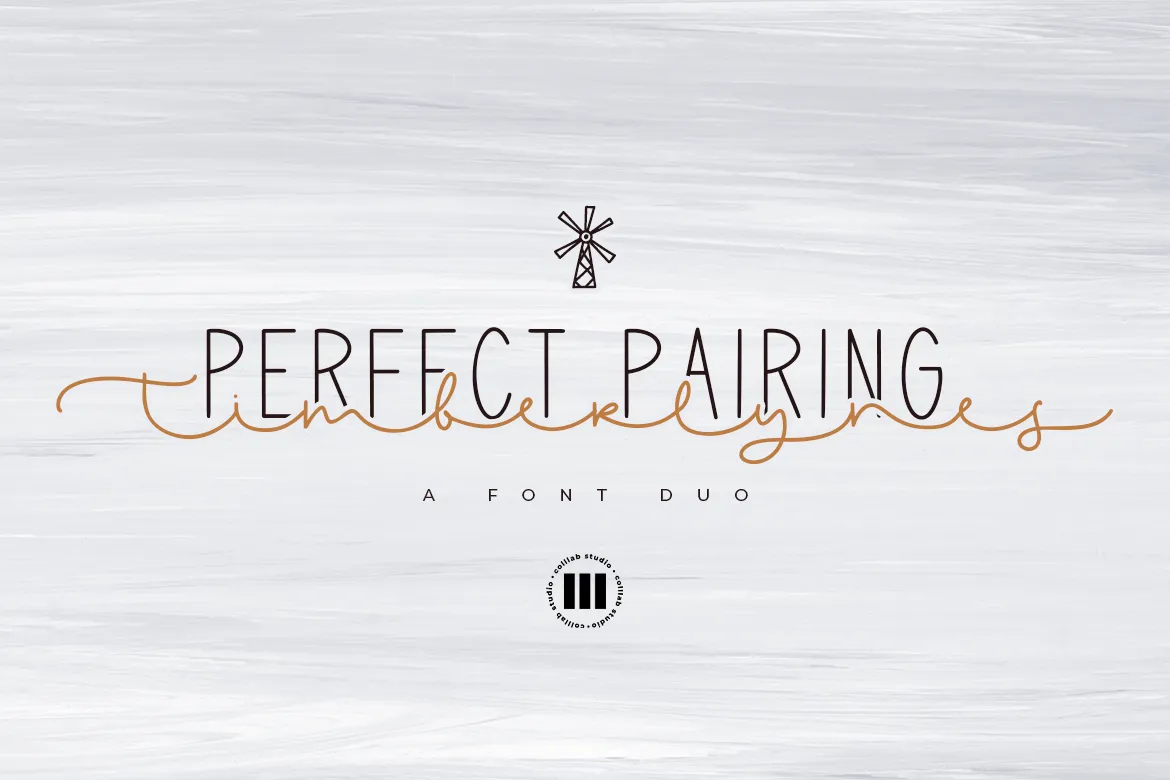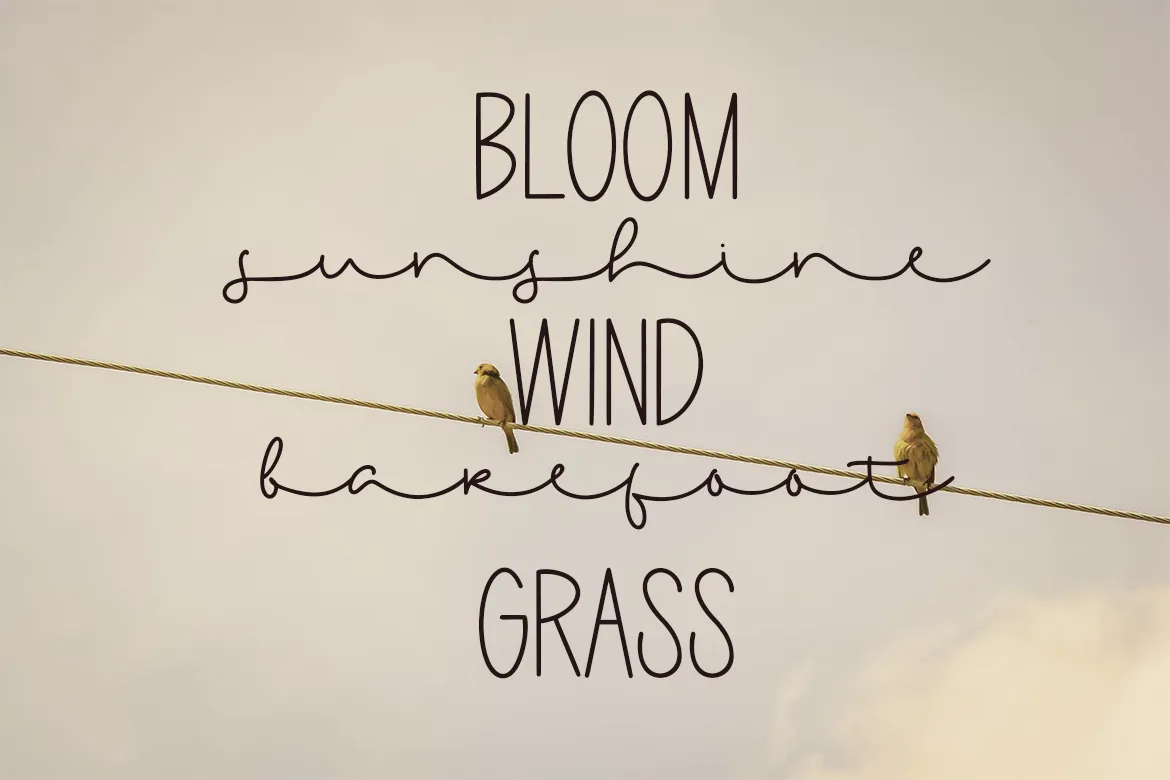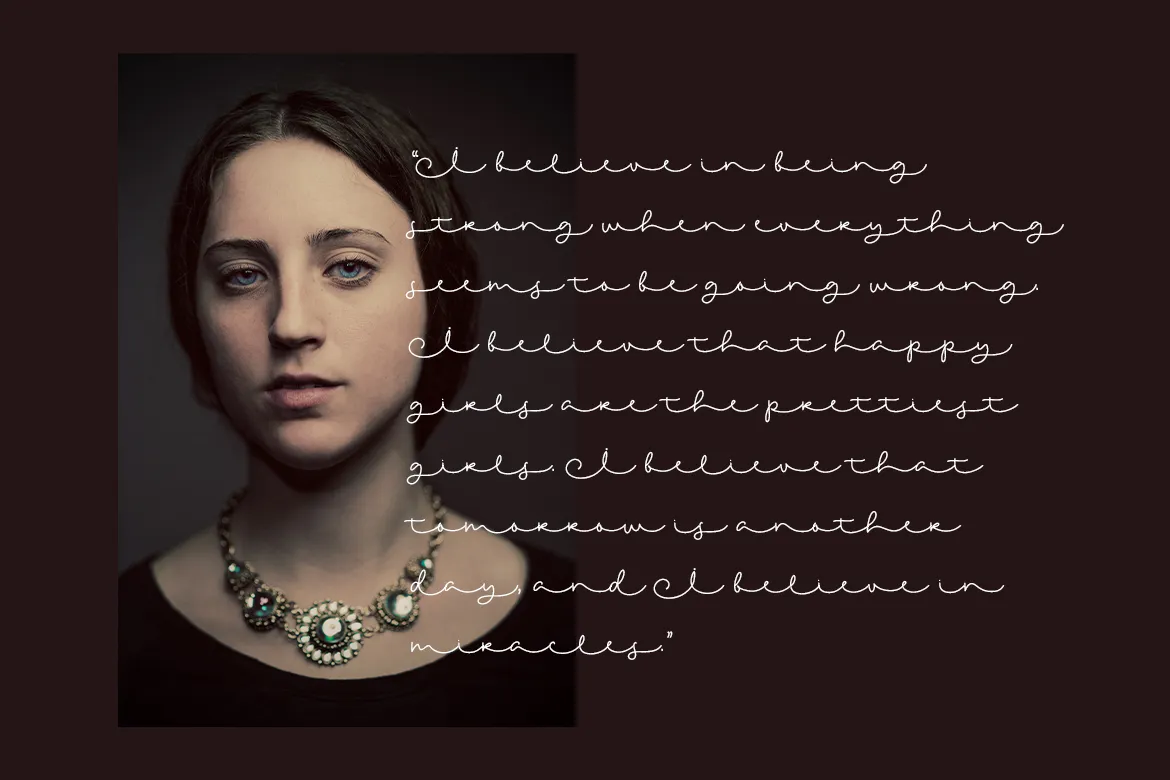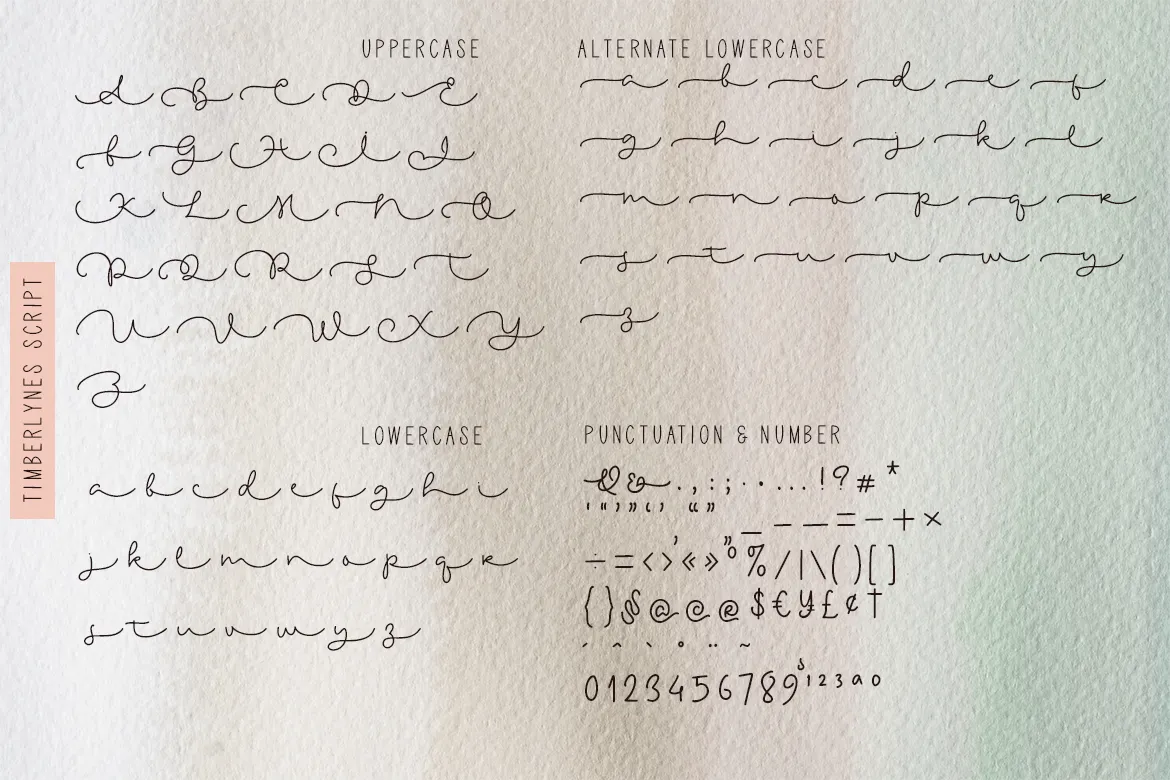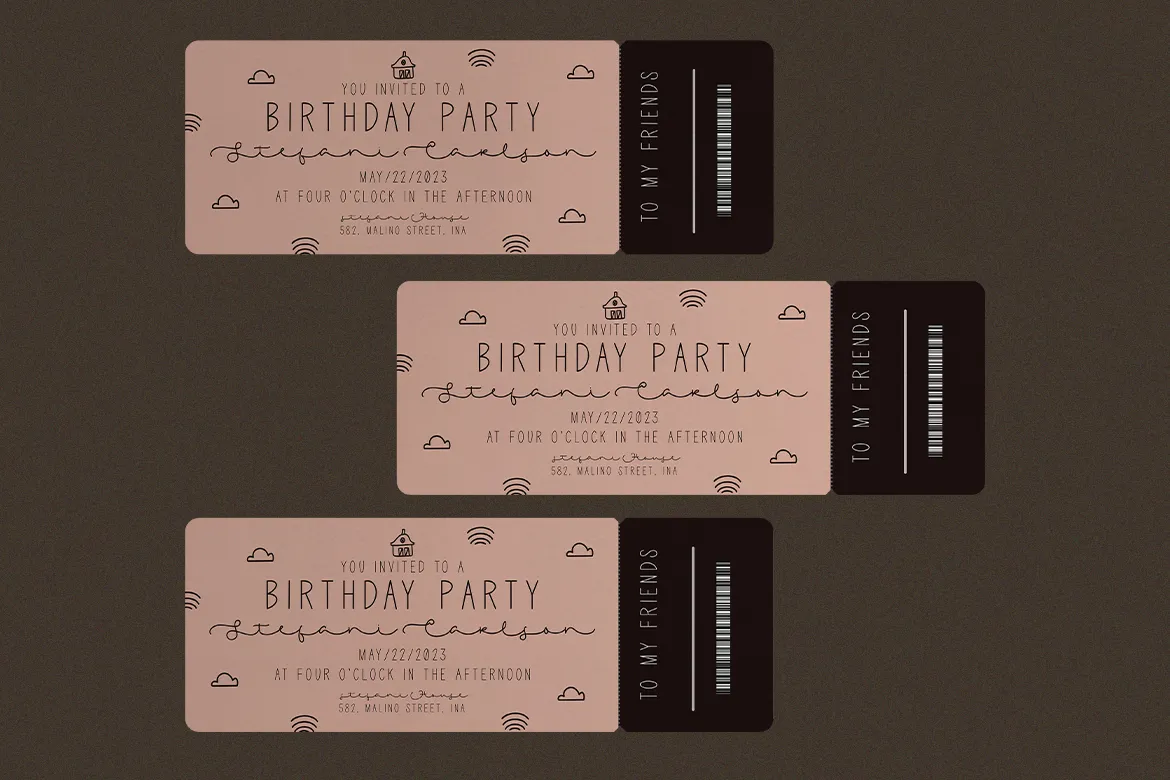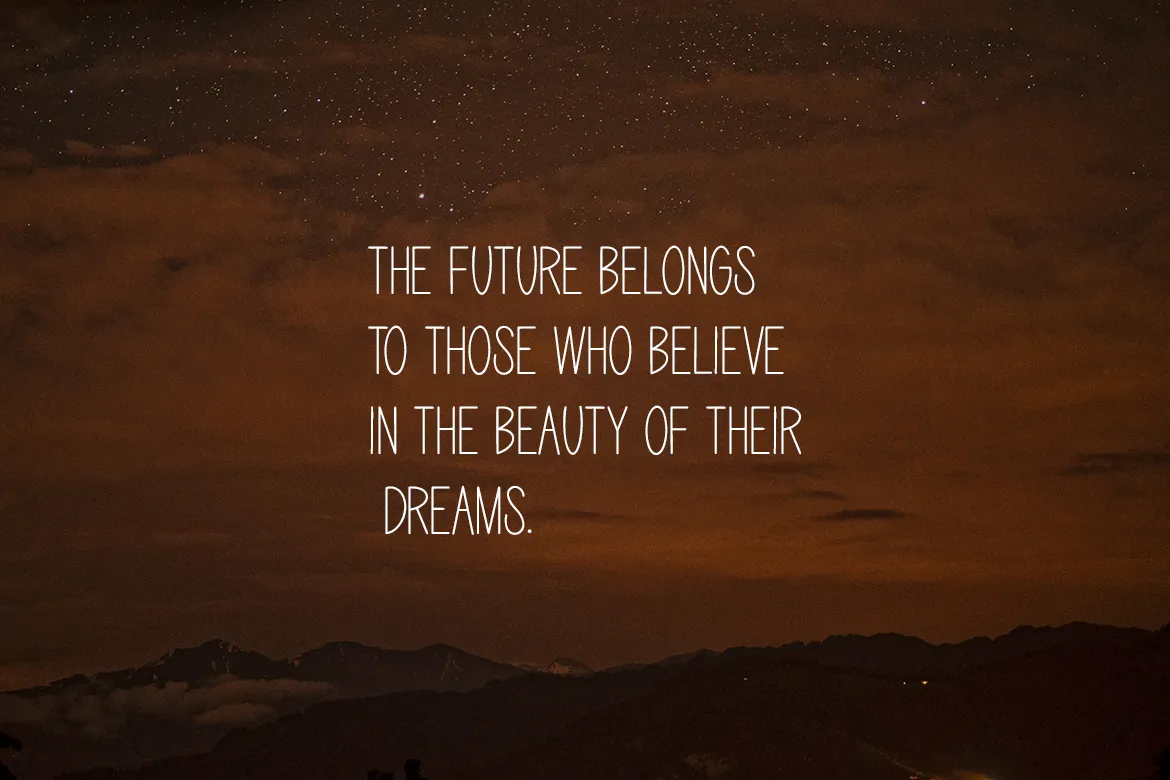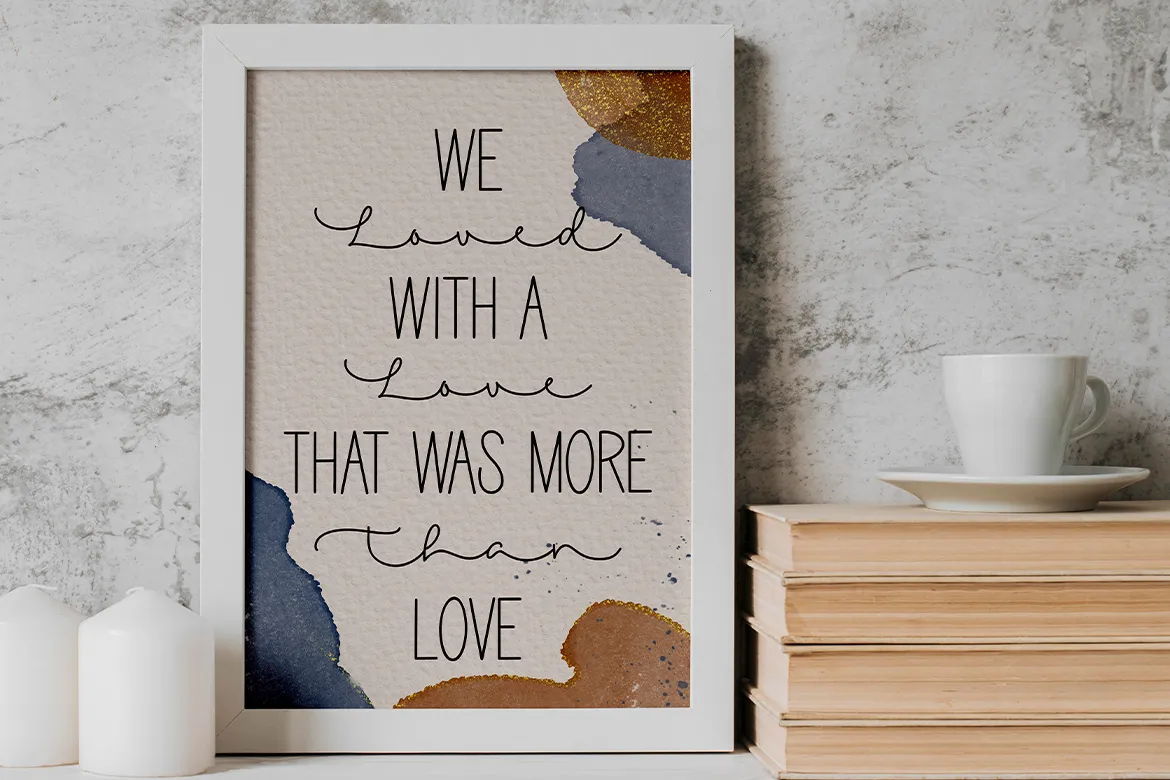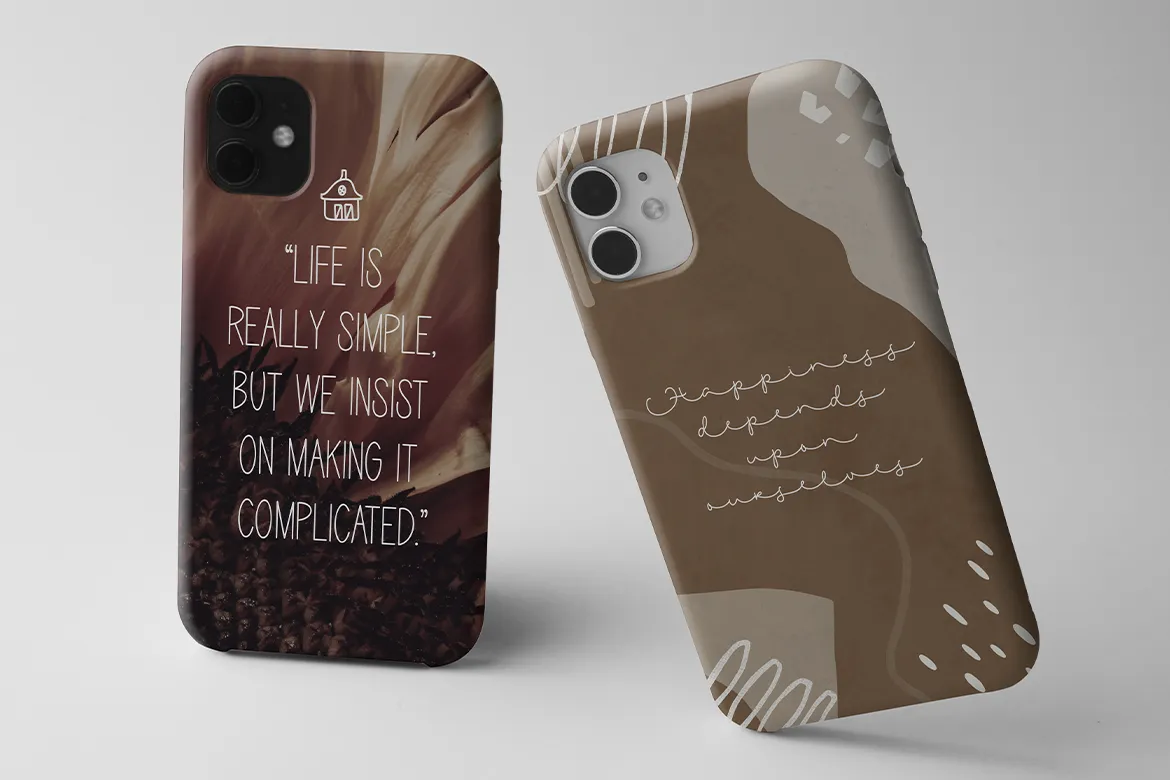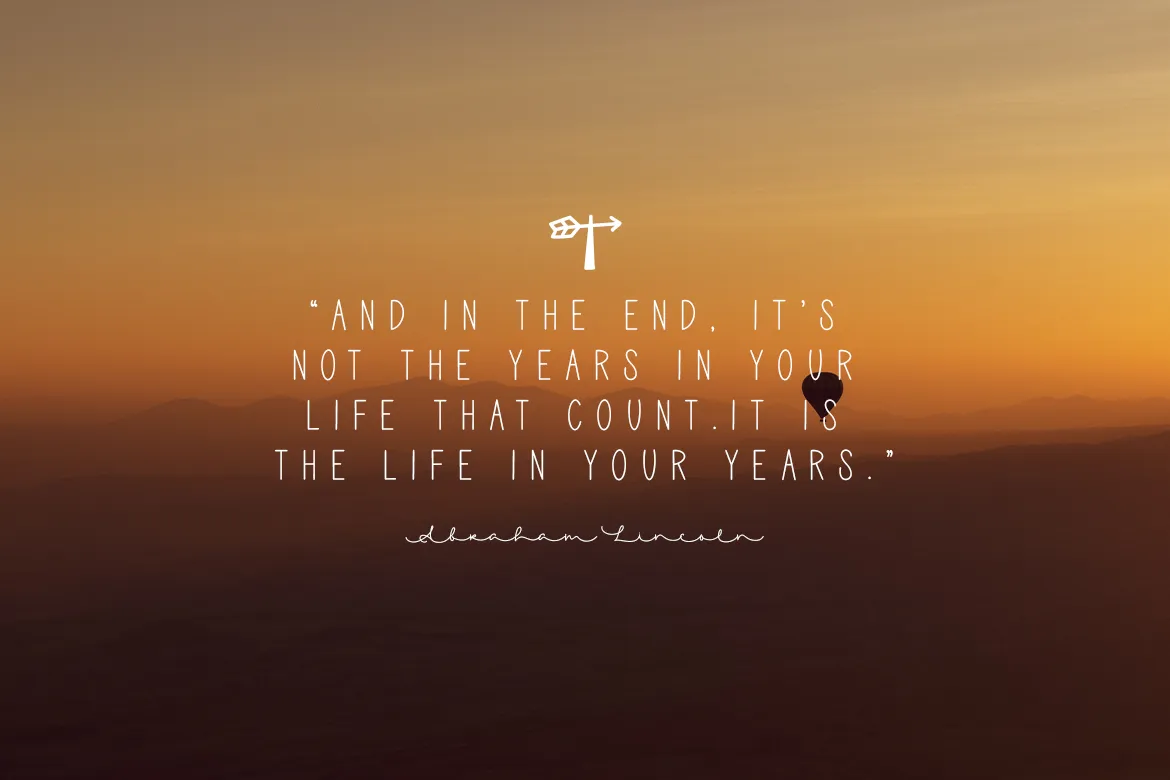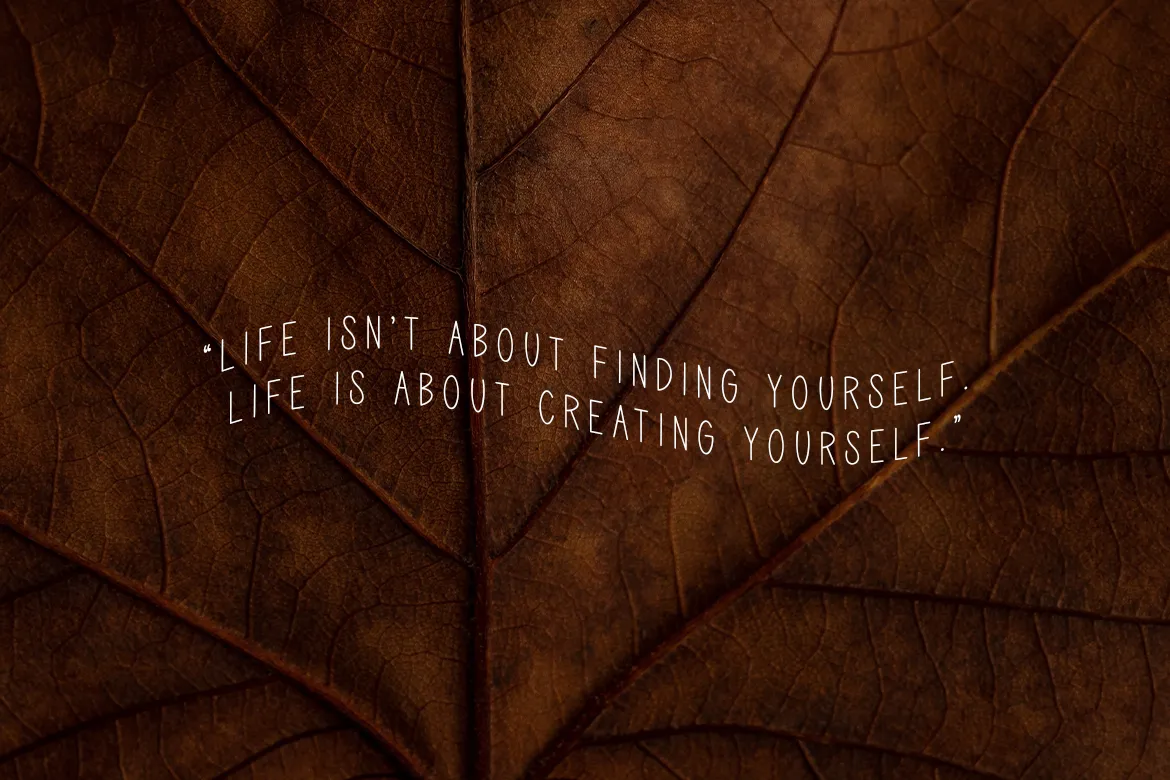
The ultimate font combo for a luxury look in your brand. Introducing Timberlynes, a pairing font duo.
With Timberlynes you will get a complete package with alternate characters & ornaments and a huge selection of stylistics alternates.
You can use the sans font in uppercase and lowercase, but from the same family you also have a script font with matching add-on’s to achieve a stunning result.